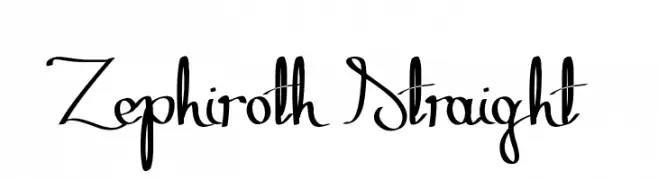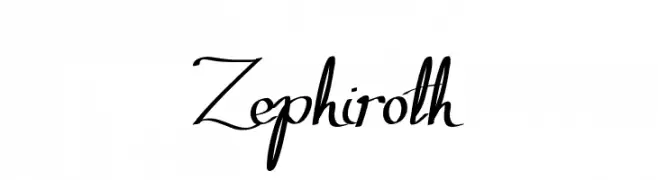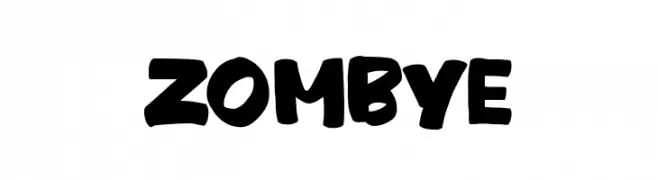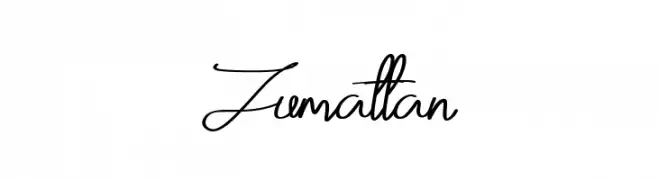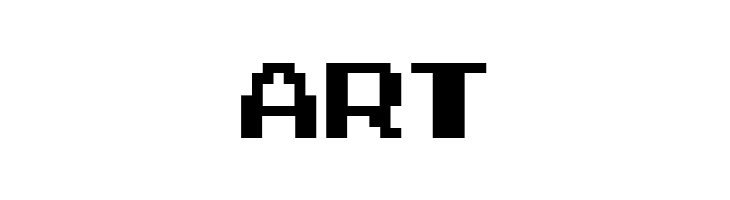
An elegant script font with flowing, cursive letters and a classic style.
An artistic script font with elegant curves and a playful flair.
A bold, pixelated font with a retro, 8-bit digital aesthetic.
A bold, playful font with a hand-drawn, casual style.
Animal silhouette font with each character as a distinct animal shape.
A lively, handwritten font with fluid strokes and a dynamic style.